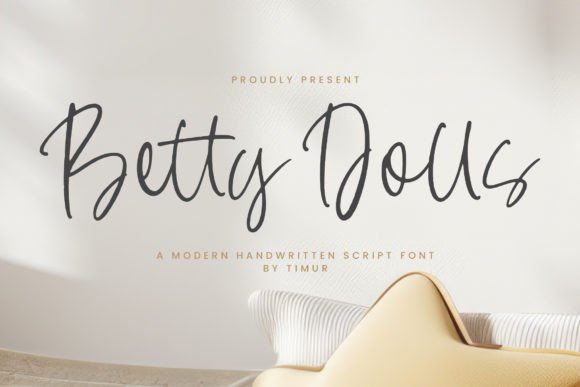
The Ultimate Guide to Betty Dolls Font: Elevate Your Designs with Playful Elegance
I’ll never forget the time I was working on a project for a client who wanted a font that was both stylish and playful. I had spent hours scouring the internet for the perfect one, but nothing seemed quite right. That was until I stumbled upon Betty Dolls Font. Its fluid strokes and whimsical curls immediately caught my eye, and I knew I had found the one. In this article, I’ll share my experience with Betty Dolls Font, its features, and how to make the most of it in your designs.
A Personal Review of Betty Dolls Font
- ✨ Playful Elegance: Betty Dolls Font exudes a sense of playful elegance that is perfect for adding a touch of whimsy to your designs.
- ✅ Readability: The font is highly readable, making it suitable for both formal and informal projects.
- 💫 Versatility: Betty Dolls Font can be used for a wide range of design projects, from invitations and branding to social media graphics.
- 🎨 Artistic Flair: The font’s fluid strokes and curls add a touch of artistic flair to your designs, making them stand out.
While Betty Dolls Font is an excellent choice for many design projects, there are a few quirks to be aware of:
- ⚠️ Limited Use in Small Sizes: The font’s intricate details and curls may not be suitable for very small sizes, as they can become difficult to read.
- 🤔 Kerning Issues: As with any font, kerning issues may arise when pairing Betty Dolls Font with other fonts. Be sure to adjust the kerning to achieve the best results.
- Experiment with OpenType features and glyphs to add more flair to your text.
The Designer Inspiration Behind Betty Dolls Font
Betty Dolls Font was inspired by the classic dolls of the 1950s and 60s, with their curly hair and playful charm. The designer aimed to capture the essence of these dolls in a font that would bring a touch of whimsy and elegance to designs. With its fluid strokes and curls, Betty Dolls Font is sure to delight designers and crafters alike.
Q: What is the best way to use Betty Dolls Font in my designs?
A: The best way to use Betty Dolls Font is to experiment with different sizes, colors, and OpenType features to add a touch of elegance and whimsy to your designs.
Q: Can I pair Betty Dolls Font with other fonts?
A: Yes, Betty Dolls Font can be paired with other fonts to create a unique and interesting design. Experiment with different font combinations to find the perfect match.